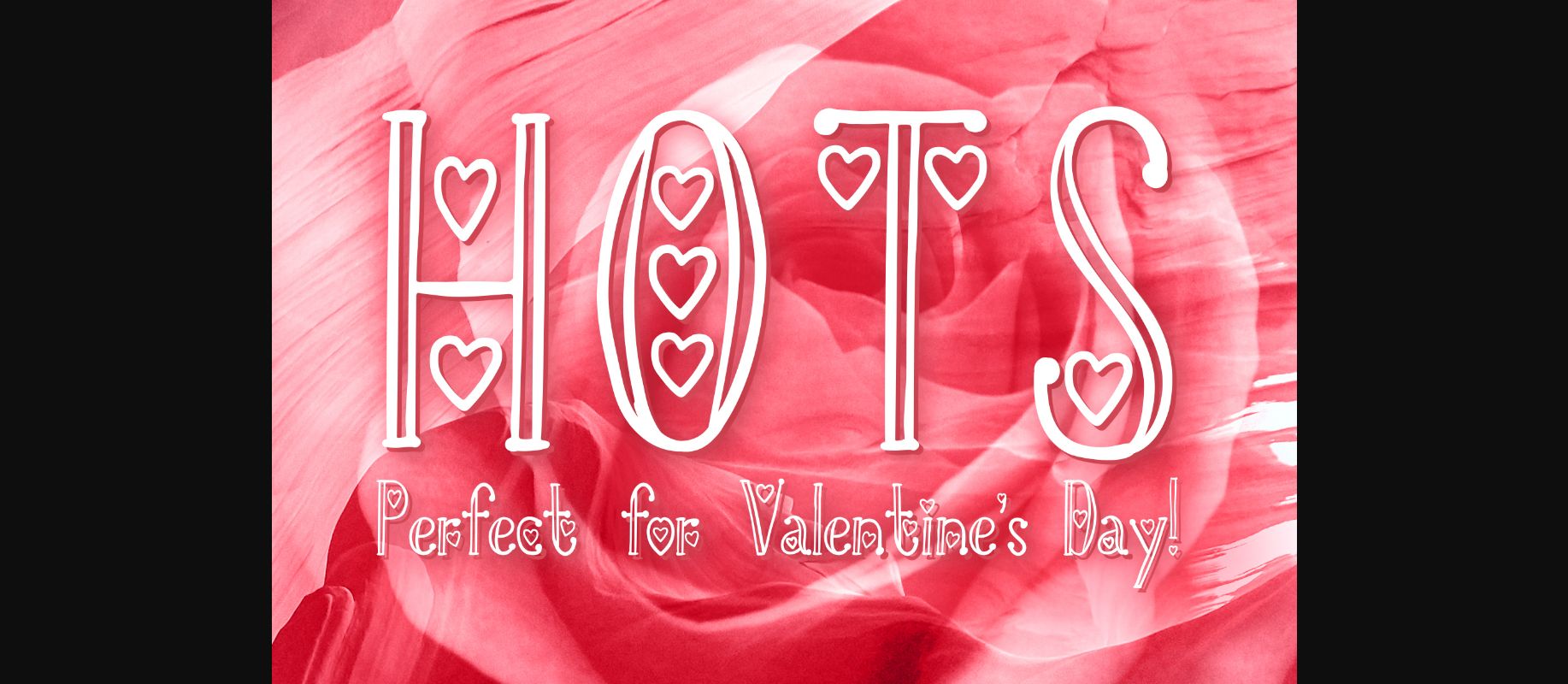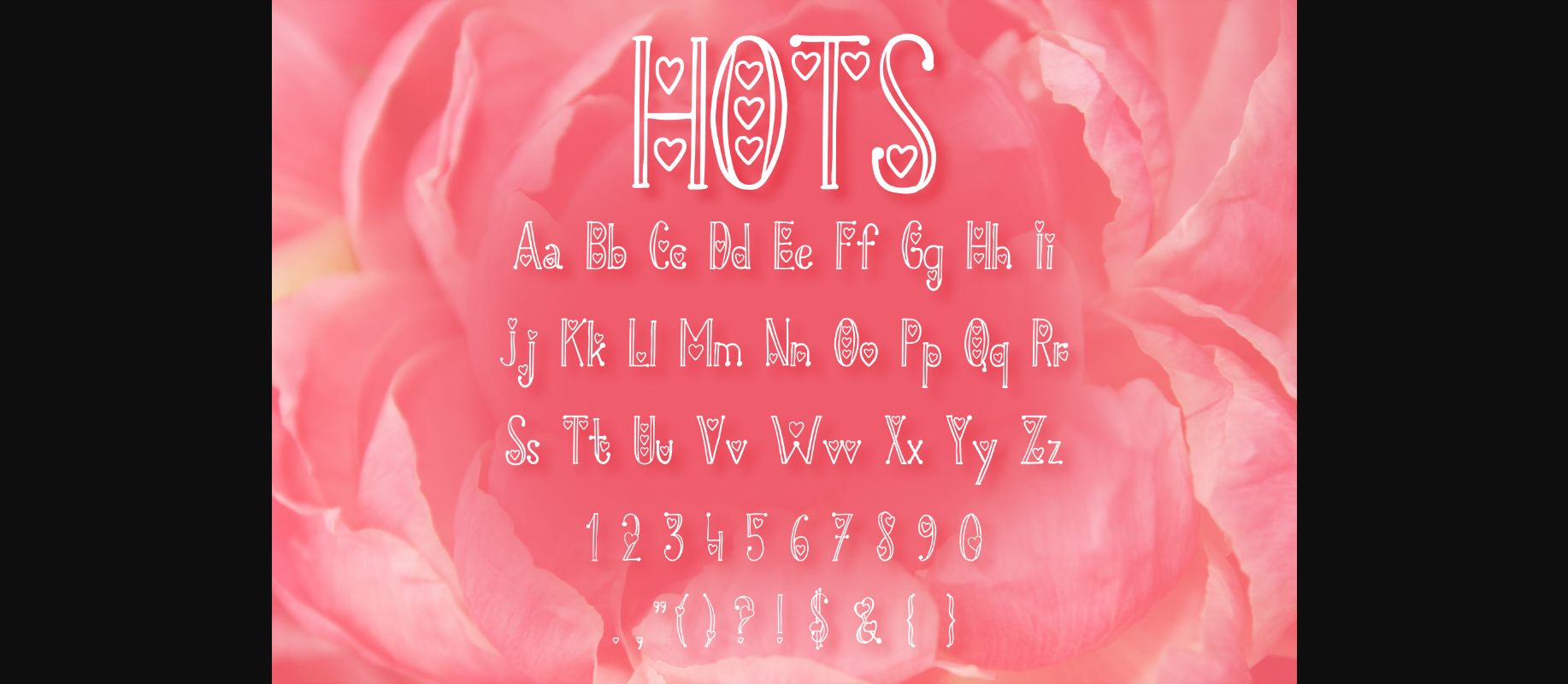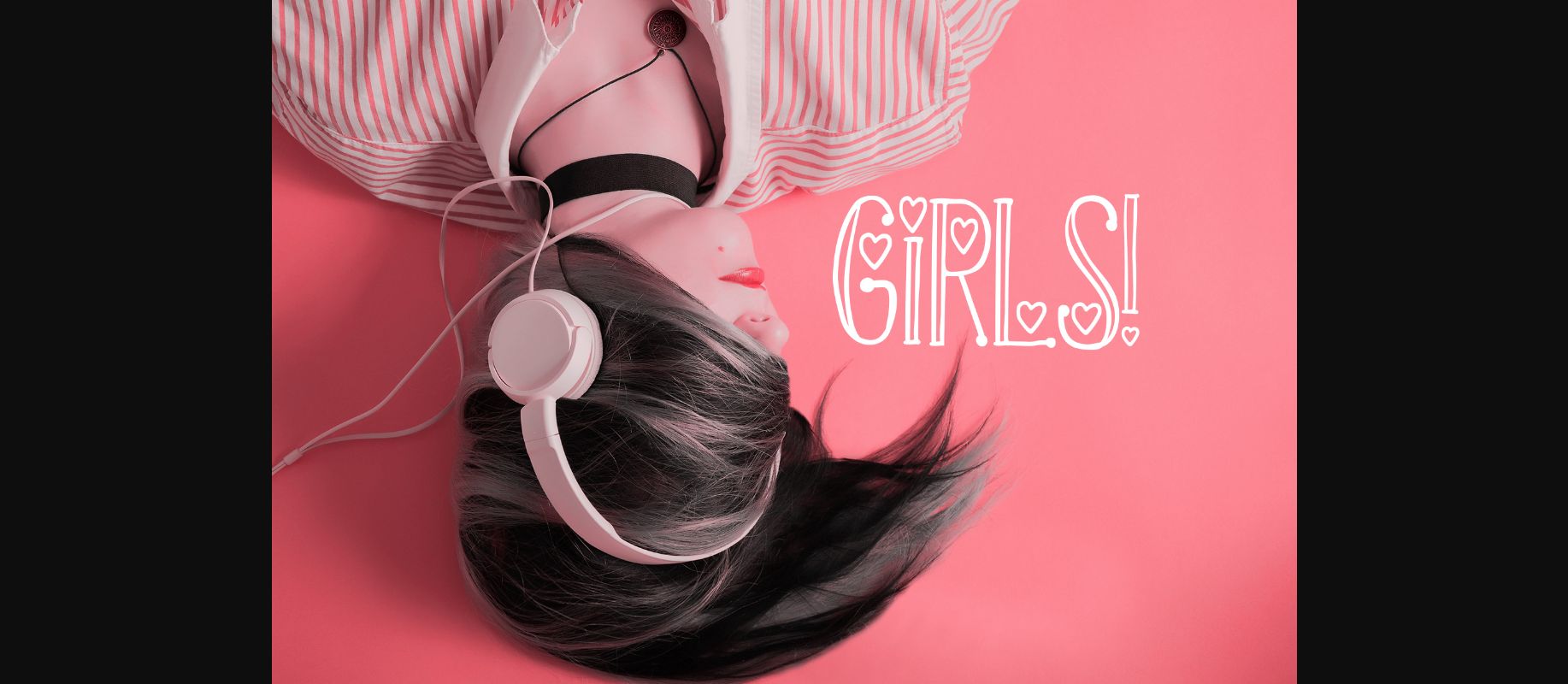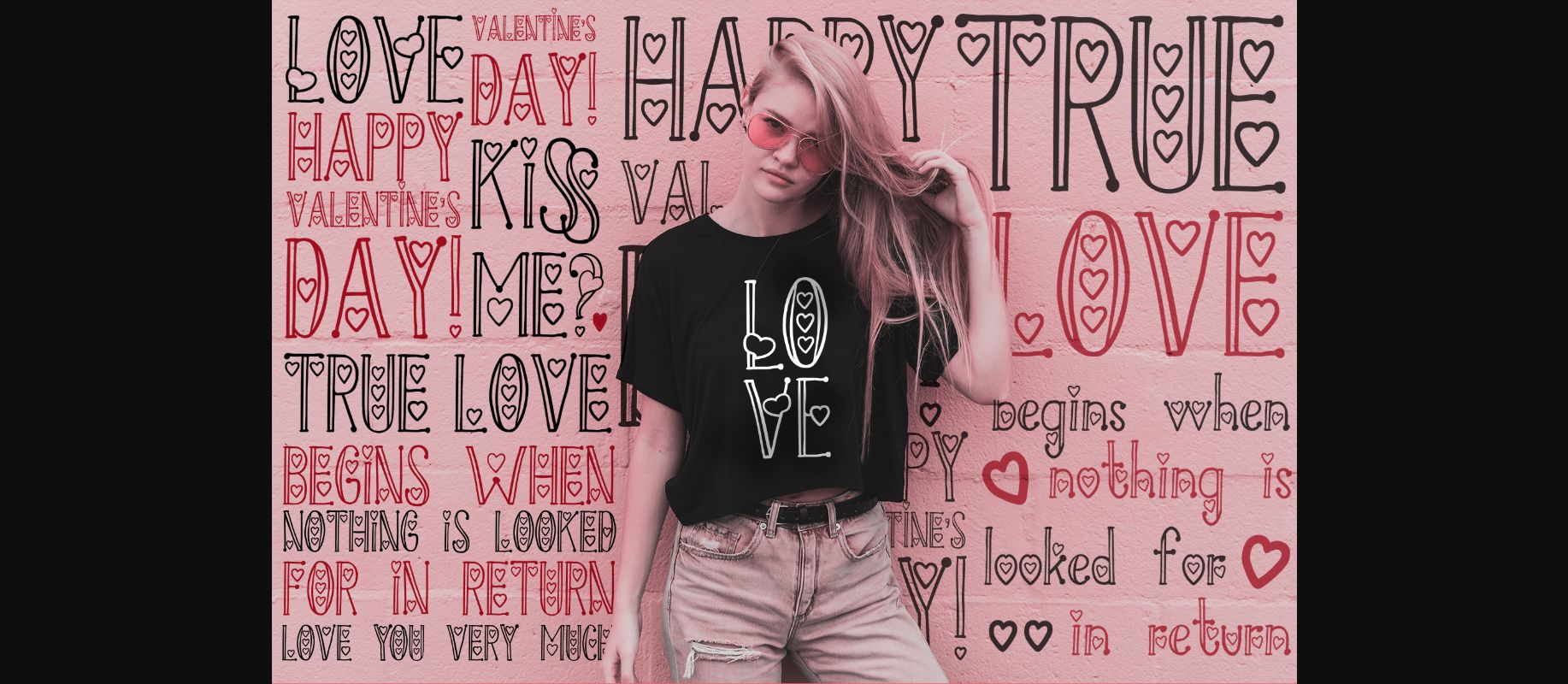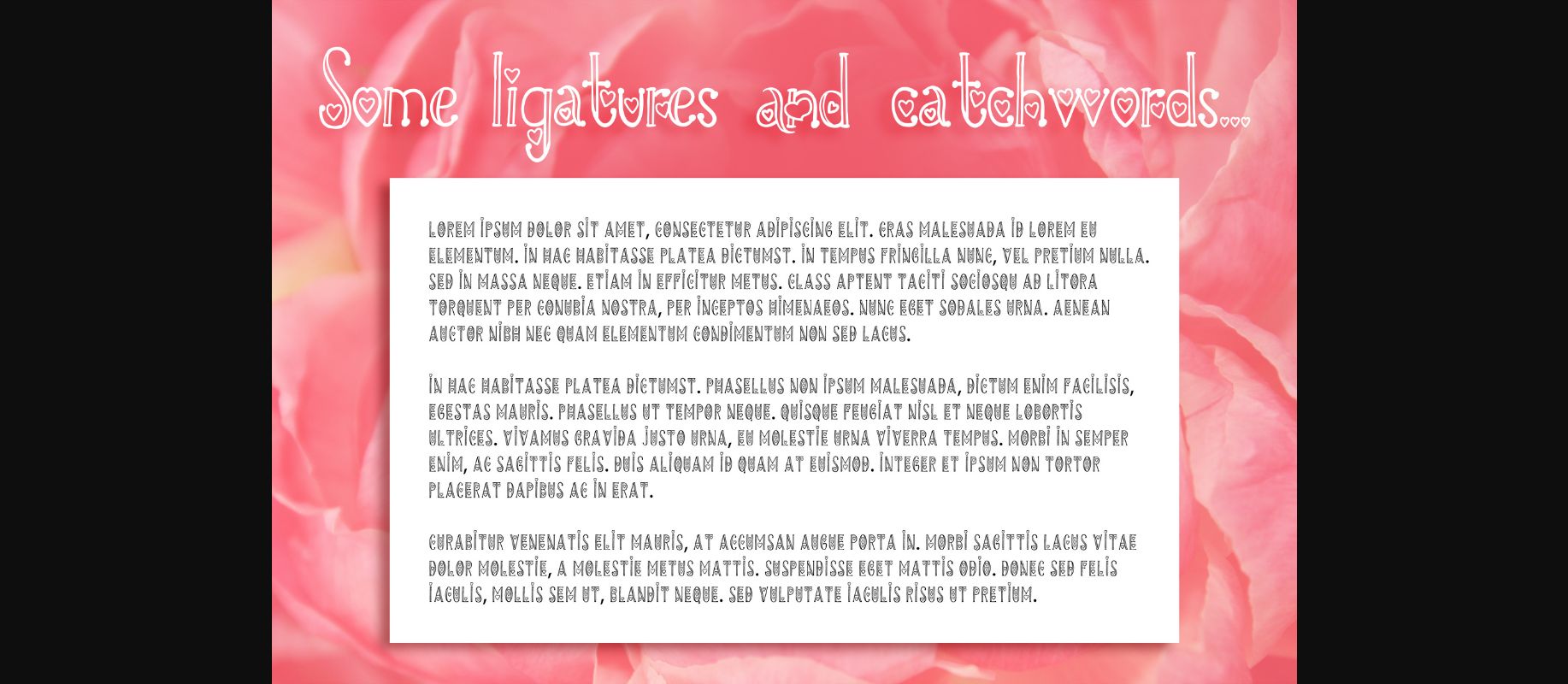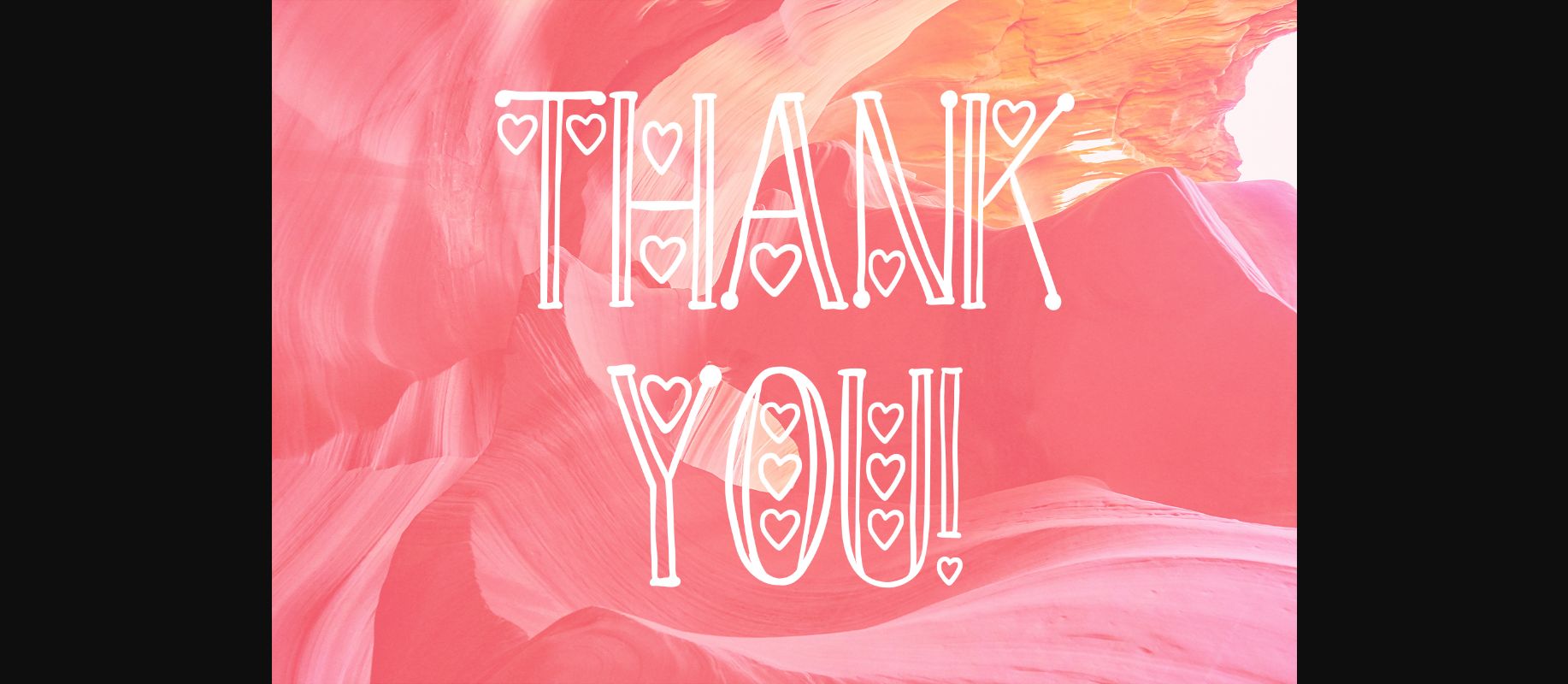
Hots Font
About Hots Font
The Hots is a perfect valentines day font. It includes decorative hand-drawn hearts combined with beautiful characters!
It’s perfect for valentine’s day gift cards, packaging designs, sweet wishes for lovers, and much more!